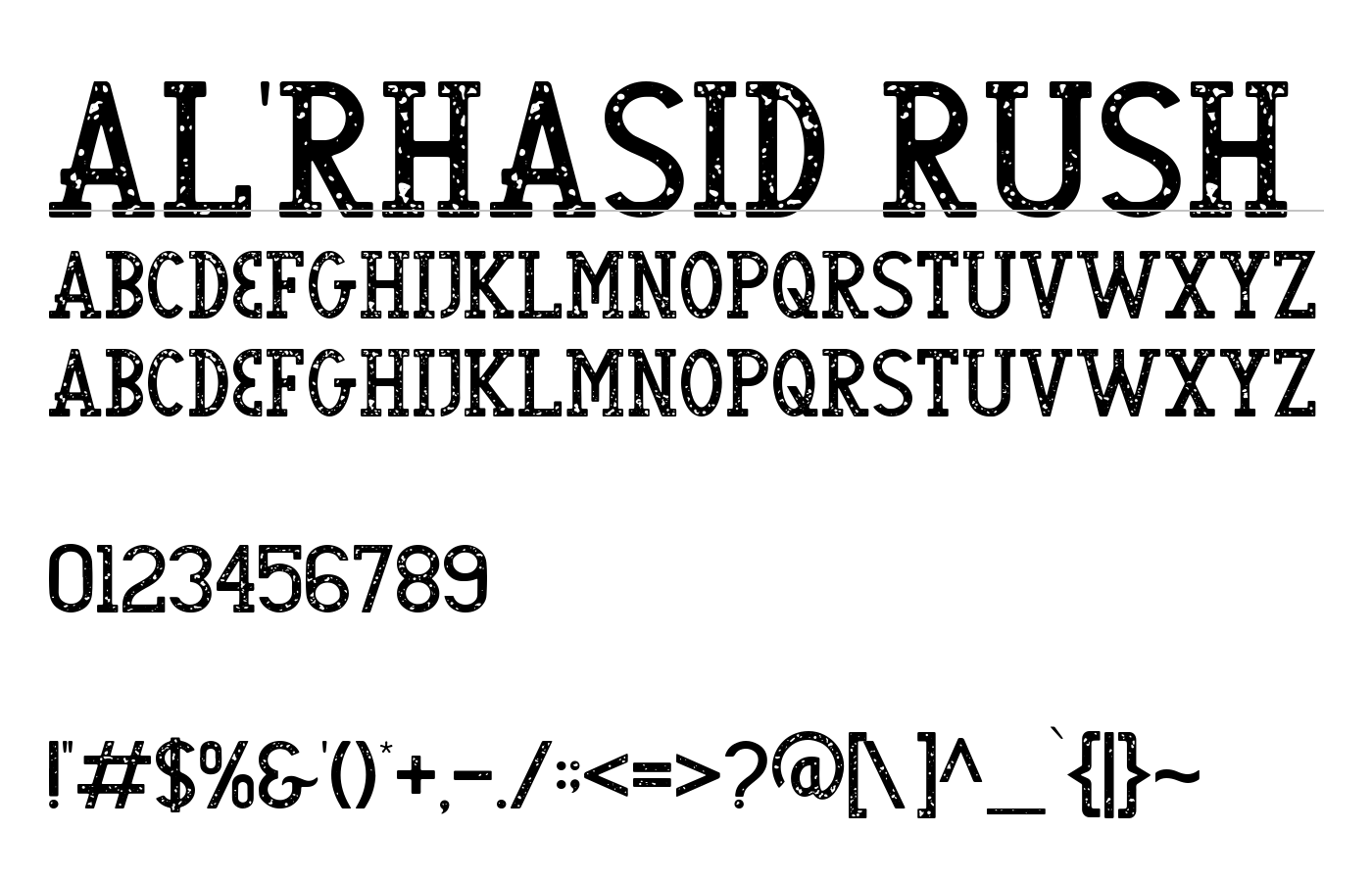
AL'RHASID RUSH is a bold, condensed slab serif font featuring a distressed texture that adds a vintage, rugged character. Its strong, blocky letterforms with bracketed serifs and uniform stroke contrast evoke a sense of old-school industrial or western style, making it ideal for eye-catching headlines, posters, and branding that seeks a gritty, retro vibe. This font stands out with its unique worn effect, perfect for designs wanting to convey toughness, authenticity, and a handcrafted feel.
AL'RHASID RUSH Font
About AL'RHASID RUSH Font
| Designer | REPI HILMANA |